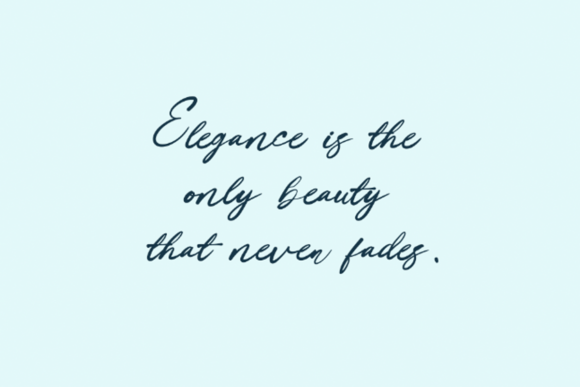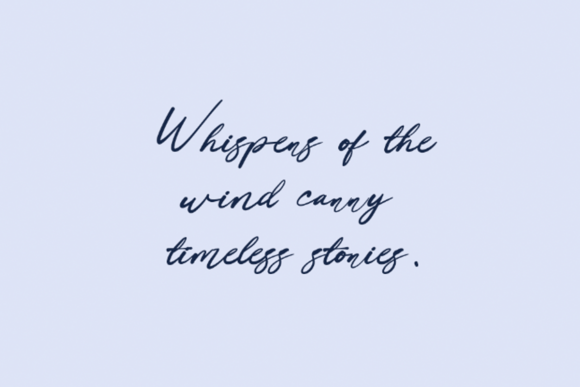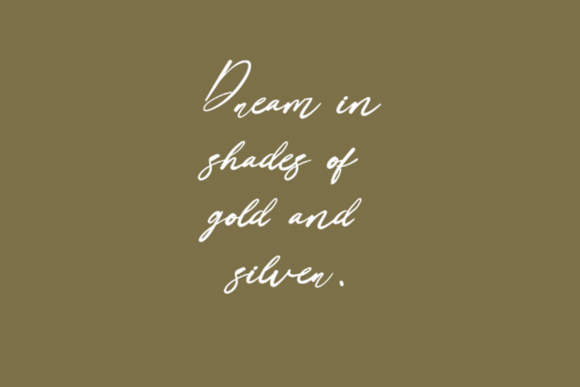
Introduction to Silverquill Font
Discover Silverquill – the pinnacle of grace, presented through an exquisitely hand-lettered script typeface.
This elegant cursive artwork expresses a bespoke, creative flair, intricately devised to bestow your creations with a charming distinction Perfect for amplifying the opulence of wedding invites, embellishing gift cards with a final flourish, personalizing signatures, beautifying planners or just simply polishing your note-taking, Silverquill Script seamlessly uplifts the visual charm of any project.
Key Features of Silverquill Font
Why Choose Silverquill Font?
Silverquill Font offers exceptional quality and versatility, making it a valuable addition to your design toolkit. Whether you’re creating for personal projects or commercial use, Silverquill Font delivers professional results.